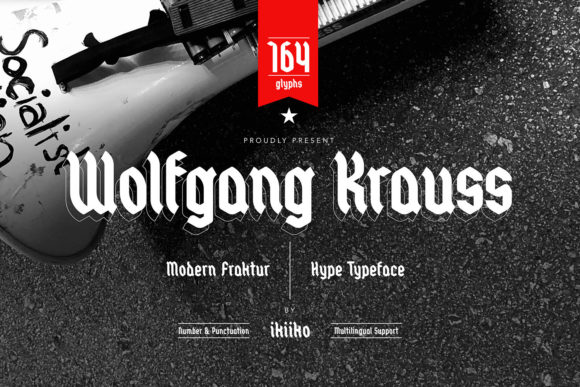
Wolfgang Krauss Font: A Gothic and Assertive Blackletter Font
When it comes to typography, the right font can make all the difference in the world. It can elevate your design, convey your message, and leave a lasting impression on your audience. One font that has been making waves in the design community is Wolfgang Krauss, a gothic and assertive blackletter font that is imposing and features uniquely shaped letters. In this article, we’ll take a closer look at Wolfgang Krauss font, its characteristics, and how it can be used to add a distinct touch to your creations.
Characteristics of Wolfgang Krauss Font
Wolfgang Krauss font is a type of blackletter font, which is a style of script that originated in Europe during the Middle Ages. Blackletter fonts are characterized by their dramatic and ornate letterforms, which are often associated with Gothic architecture and medieval manuscripts. Wolfgang Krauss font takes this classic style and adds a modern twist, with uniquely shaped letters that are both imposing and elegant.
Some of the key features of Wolfgang Krauss font include:
- Assertive and Gothic look: Wolfgang Krauss font has a bold and assertive look that commands attention. Its Gothic-inspired letterforms are perfect for designs that require a sense of drama and grandeur.
- Uniquely shaped letters: Each letter in Wolfgang Krauss font has been carefully crafted to have a unique shape and character. This gives the font a distinctive look that sets it apart from other blackletter fonts.
- Imposing and elegant: Despite its bold and assertive look, Wolfgang Krauss font also has an elegant and refined quality to it. This makes it perfect for designs that require a sense of sophistication and luxury.
Uses of Wolfgang Krauss Font
Wolfgang Krauss font is a versatile font that can be used in a wide range of designs and applications. Here are some examples of how you can use Wolfgang Krauss font:
- Logos and branding: Wolfgang Krauss font is perfect for logos and branding that require a sense of drama and grandeur. Its unique letterforms and assertive look make it ideal for companies that want to stand out from the crowd.
- Headings and titles: Wolfgang Krauss font is also great for headings and titles that require a sense of elegance and sophistication. Its imposing look and uniquely shaped letters make it perfect for designs that need to make a statement.
- Advertising and marketing: Wolfgang Krauss font can also be used in advertising and marketing materials, such as posters, flyers, and brochures. Its bold and assertive look makes it perfect for grabbing attention and conveying a message.
- Packaging and product design: Wolfgang Krauss font can also be used in packaging and product design, such as labels, tags, and packaging materials. Its unique letterforms and elegant quality make it perfect for designs that require a sense of luxury and sophistication.
Benefits of Using Wolfgang Krauss Font
There are many benefits to using Wolfgang Krauss font in your designs. Here are some of the advantages of using this font:
- Distinctive look: Wolfgang Krauss font has a distinctive look that sets it apart from other fonts. Its uniquely shaped letters and assertive look make it perfect for designs that require a sense of drama and grandeur.
- Versatility: Wolfgang Krauss font is a versatile font that can be used in a wide range of designs and applications. Its elegant quality and imposing look make it perfect for designs that require a sense of sophistication and luxury.
- Attention-grabbing: Wolfgang Krauss font is perfect for designs that require attention-grabbing typography. Its bold and assertive look makes it ideal for designs that need to stand out from the crowd.
- Easy to read: Despite its bold and ornate letterforms, Wolfgang Krauss font is surprisingly easy to read. This makes it perfect for designs that require a sense of elegance and sophistication, without sacrificing legibility.
Pairing Wolfgang Krauss Font with Other Fonts
When it comes to pairing Wolfgang Krauss font with other fonts, there are many options to choose from. Here are some suggestions:
- Serif fonts: Wolfgang Krauss font pairs well with serif fonts, such as Times New Roman or Garamond. The contrast between the ornate letterforms of Wolfgang Krauss font and the classic serif fonts creates a striking visual effect.
- Sans-serif fonts: Wolfgang Krauss font also pairs well with sans-serif fonts, such as Arial or Helvetica. The contrast between the bold and assertive look of Wolfgang Krauss font and the clean and minimalist look of sans-serif fonts creates a visually appealing effect.
- Script fonts: Wolfgang Krauss font can also be paired with script fonts, such as Lobster or Pacifico. The contrast between the ornate letterforms of Wolfgang Krauss font and the flowing script fonts creates a beautiful and elegant visual effect.
In conclusion, Wolfgang Krauss font is a gothic and assertive blackletter font that is perfect for designs that require a sense of drama and grandeur. Its uniquely shaped letters and imposing look make it ideal for logos, headings, and titles that need to make a statement. With its versatility, attention-grabbing quality, and ease of readability, Wolfgang Krauss font is a great choice for designers who want to add a distinct touch to their creations.